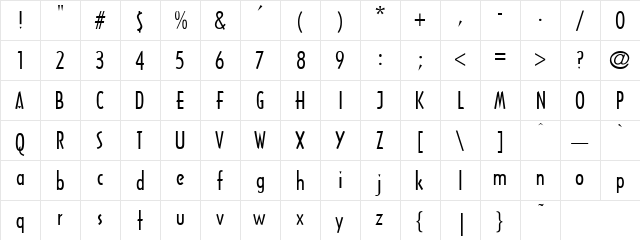
Fountainpen Regular
Design Context for Fountainpen Typeface
Fountainpen takes a measured approach to typography — its balanced proportions and neutral character make it a reliable workhorse for both digital and print work.